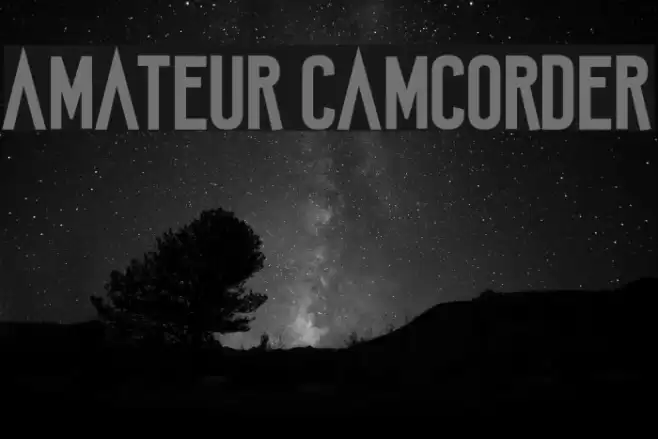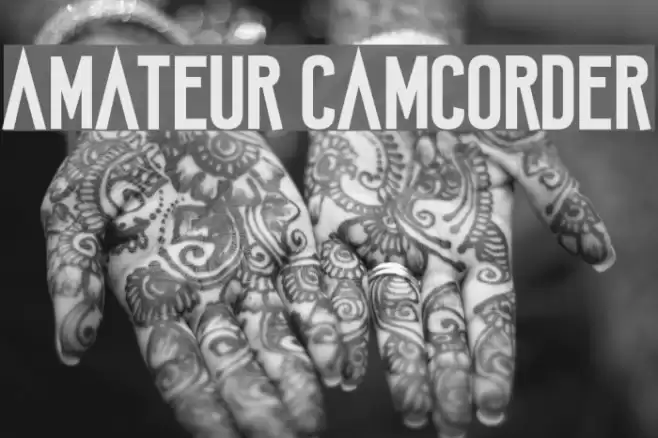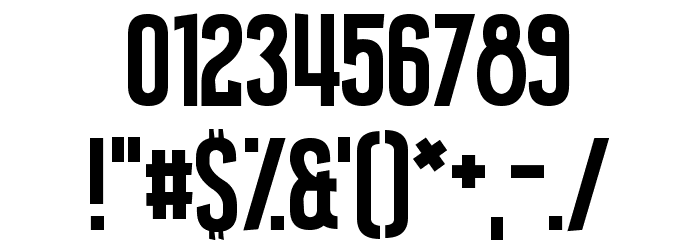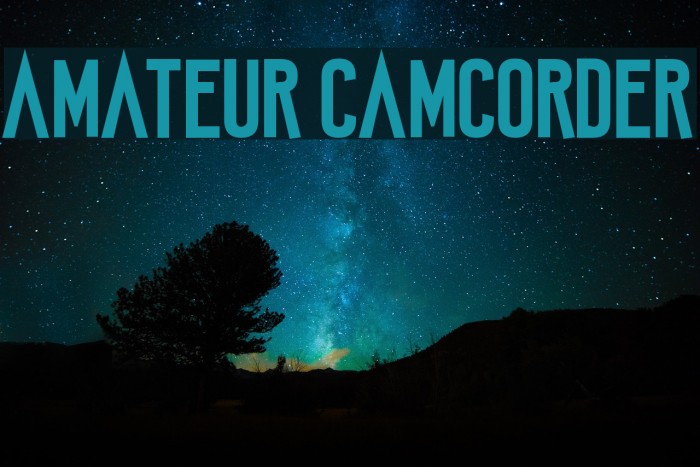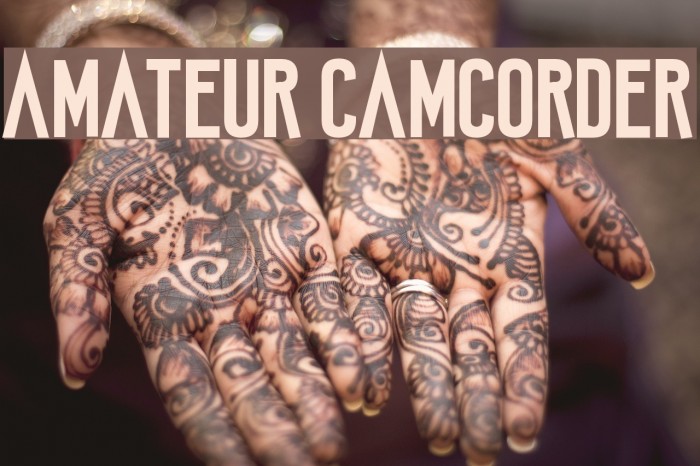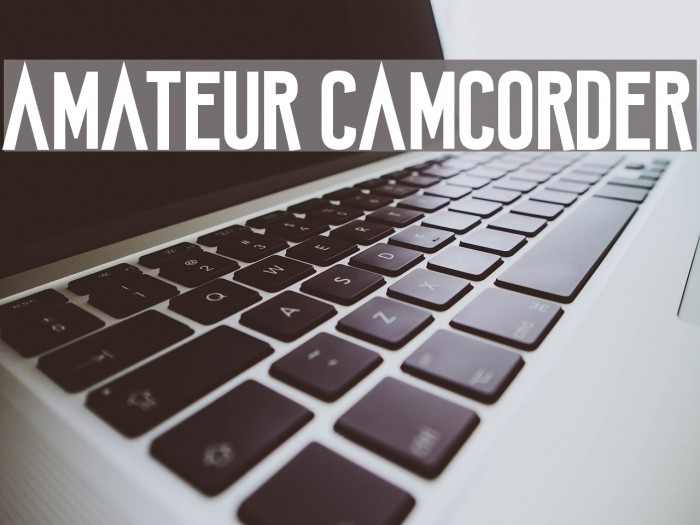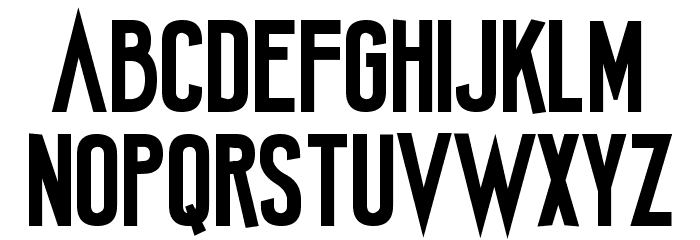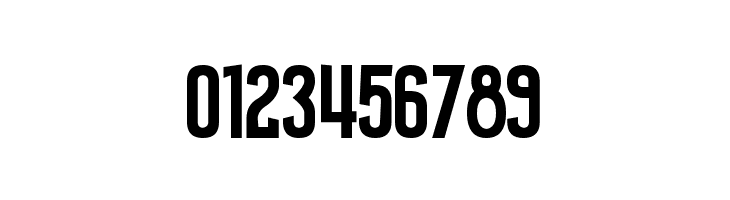
Amateur Camcorder Font
Amateur Camcorder Description
This font features a bold, geometric sans-serif style with a strong presence. The characters are tall and narrow, giving a condensed appearance that maximizes vertical space. The strokes are uniform in thickness, providing a consistent and modern look. The uppercase letters are particularly striking, with sharp angles and clean lines. The numerals and special characters maintain the same boldness and clarity, ensuring readability across different contexts. This font is well-suited for impactful headlines and titles, where attention-grabbing text is essential.
Bold, geometric sans-serif font with a condensed and modern style from Uncategorized fonts.
- Proposed Projects: Ideal for headlines, posters, branding, and advertising materials where a strong visual impact is desired.
- Character Spacing: Tight